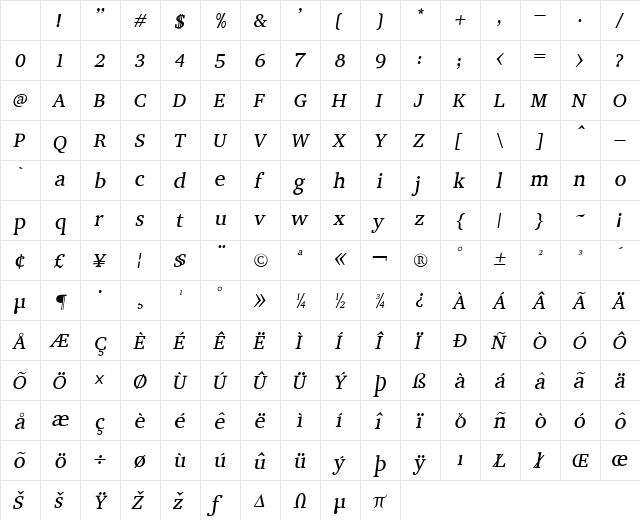
Complete Auctoritas Italic glyph index. Displaying only characters natively supported by Auctoritas Italic font.
Auctoritas is a composed and adaptable typeface that performs quietly and consistently across a wide range of design contexts. The slanted form adds forward momentum and visual energy.
Pro Tip: Use Auctoritas for emphasis, pull quotes, and subheadings where its slanted energy can add rhythm to the layout.